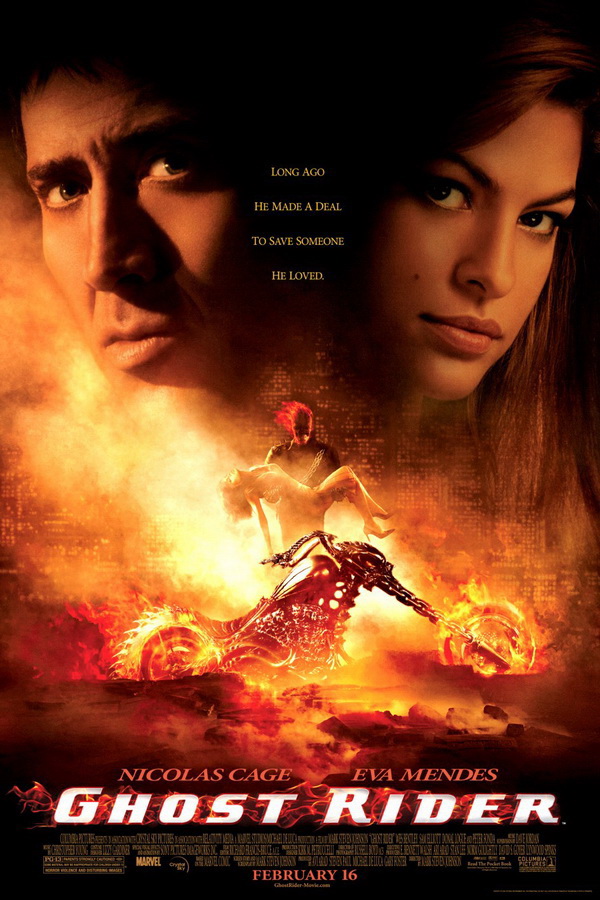
Ghost Rider Font
ActionGhost Rider is a 2007 action film based on the Marvel Comics character of the same name. The movie follows stunt motorcyclist Johnny Blaze as he makes a deal with the devil to save his father, becoming the fiery antihero known as Ghost Rider in the process.
The theatrical release poster of the Ghost Rider movie features a font similar to Alphabet & Type's Ghost Rider font. The font can only be written in capital letters and is available for free download in the Fonts Used Section.